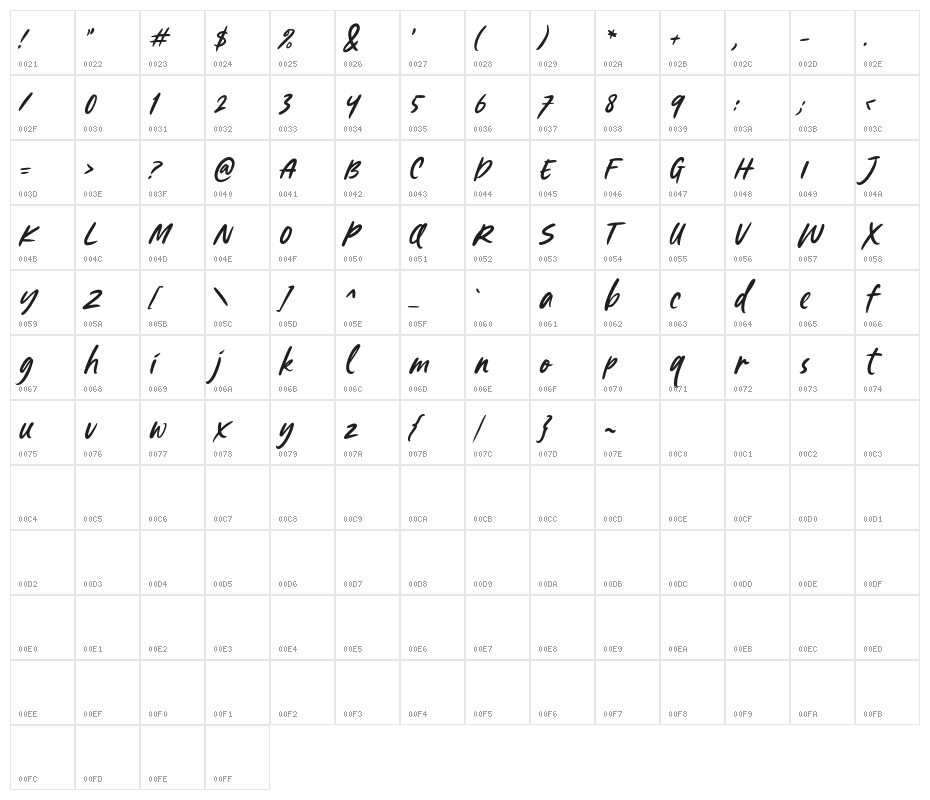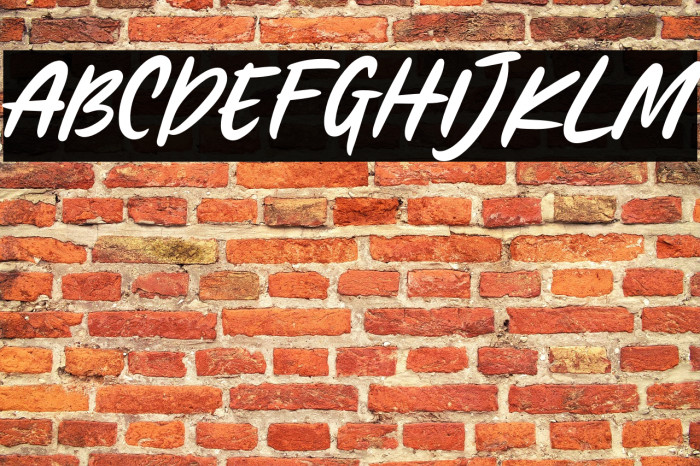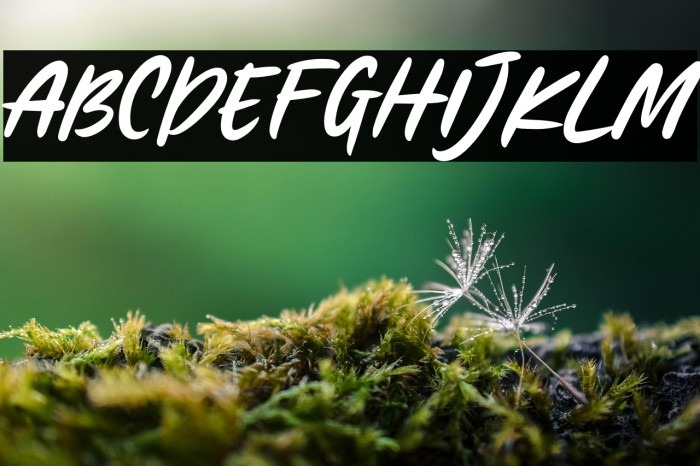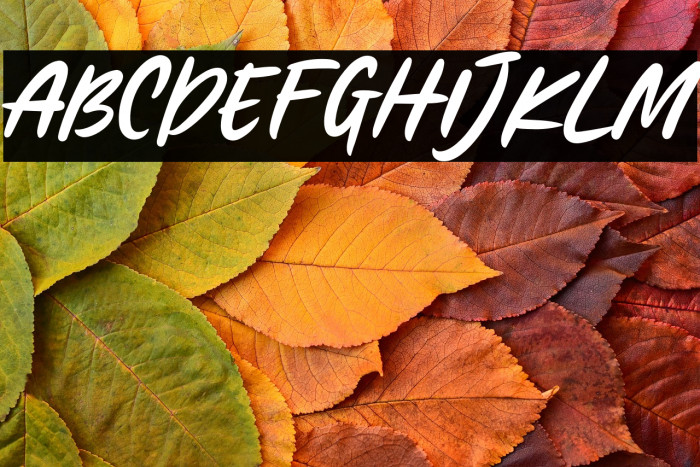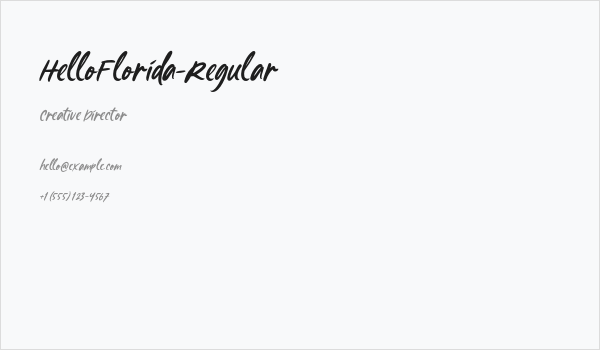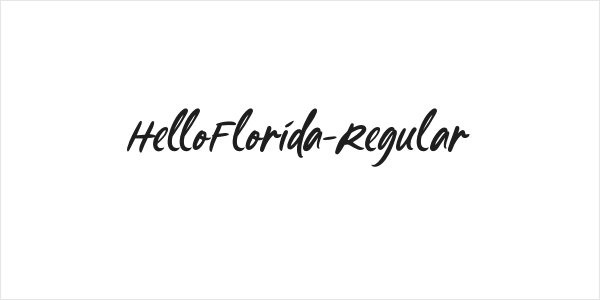
HelloFlorida-Regular Font
HelloFlorida-Regular Description
A bold, handwritten script font with a modern and energetic style, featuring smooth curves and a casual appearance.
| Overall Style | Modern, Casual |
| Use Case | Logos, Headlines, Invitations |
| Proposed Projects | Greeting cards, invitations, branding, social media graphics. |